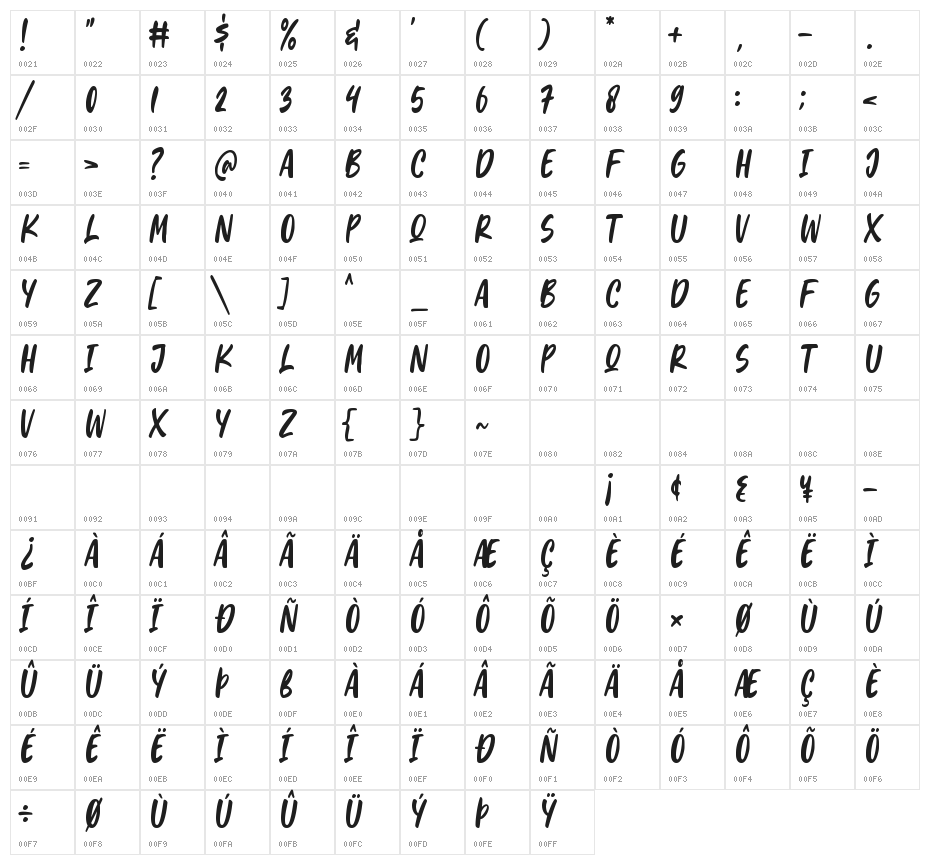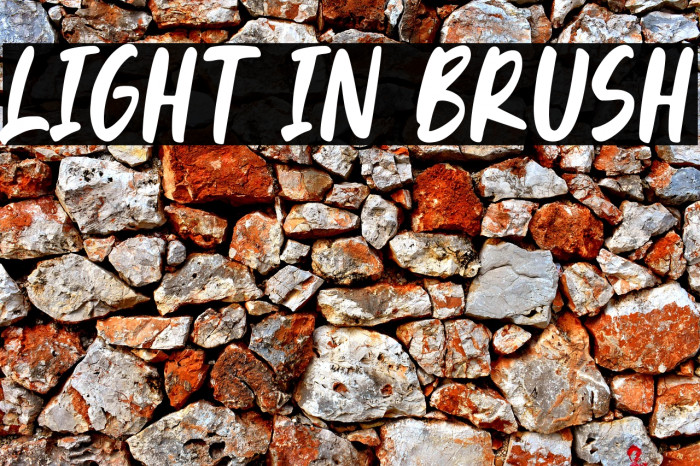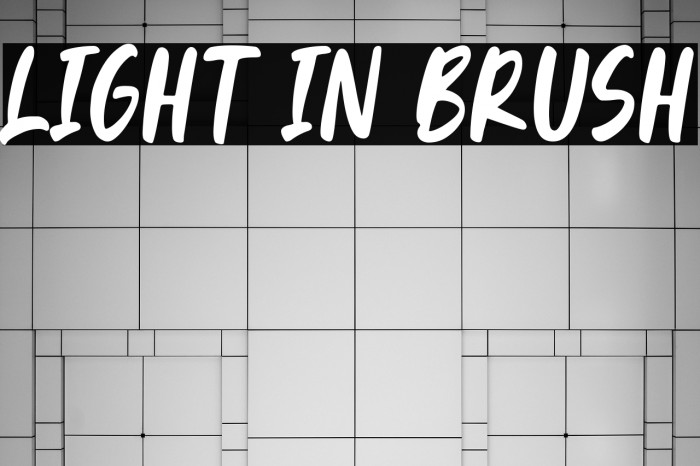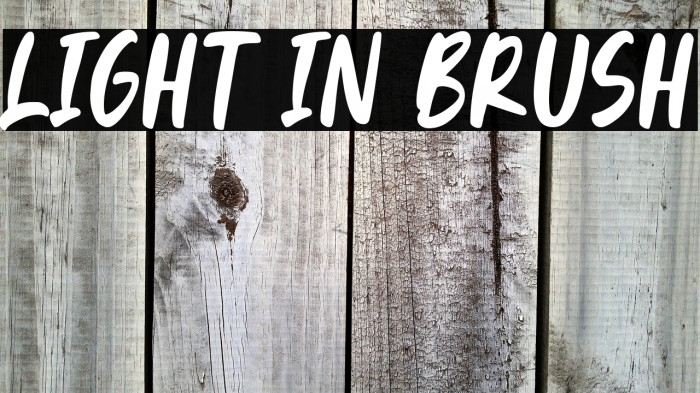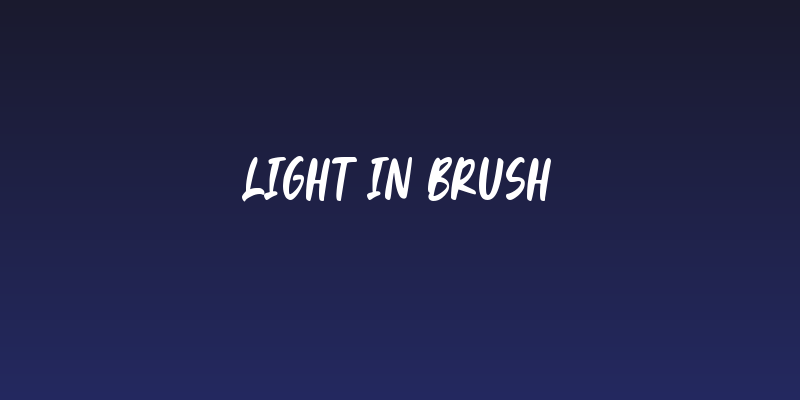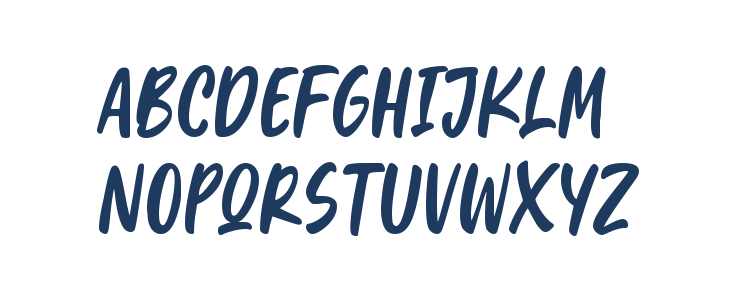
Light In Brush Font
Light In Brush Description
This font exudes a dynamic and energetic feel, characterized by its bold, brush-like strokes that convey a sense of movement and fluidity. The letters are slightly slanted, adding to the impression of speed and spontaneity. Each character is crafted with a consistent thickness, giving the font a cohesive and harmonious appearance. The uppercase and lowercase letters maintain a uniform style, while the numerals and special characters integrate seamlessly, ensuring versatility across various applications. This font is ideal for projects that require a lively and informal touch, such as event posters, creative branding, and artistic designs.
| Proposed Projects | Ideal for event posters, creative branding, artistic designs, and informal communications. |